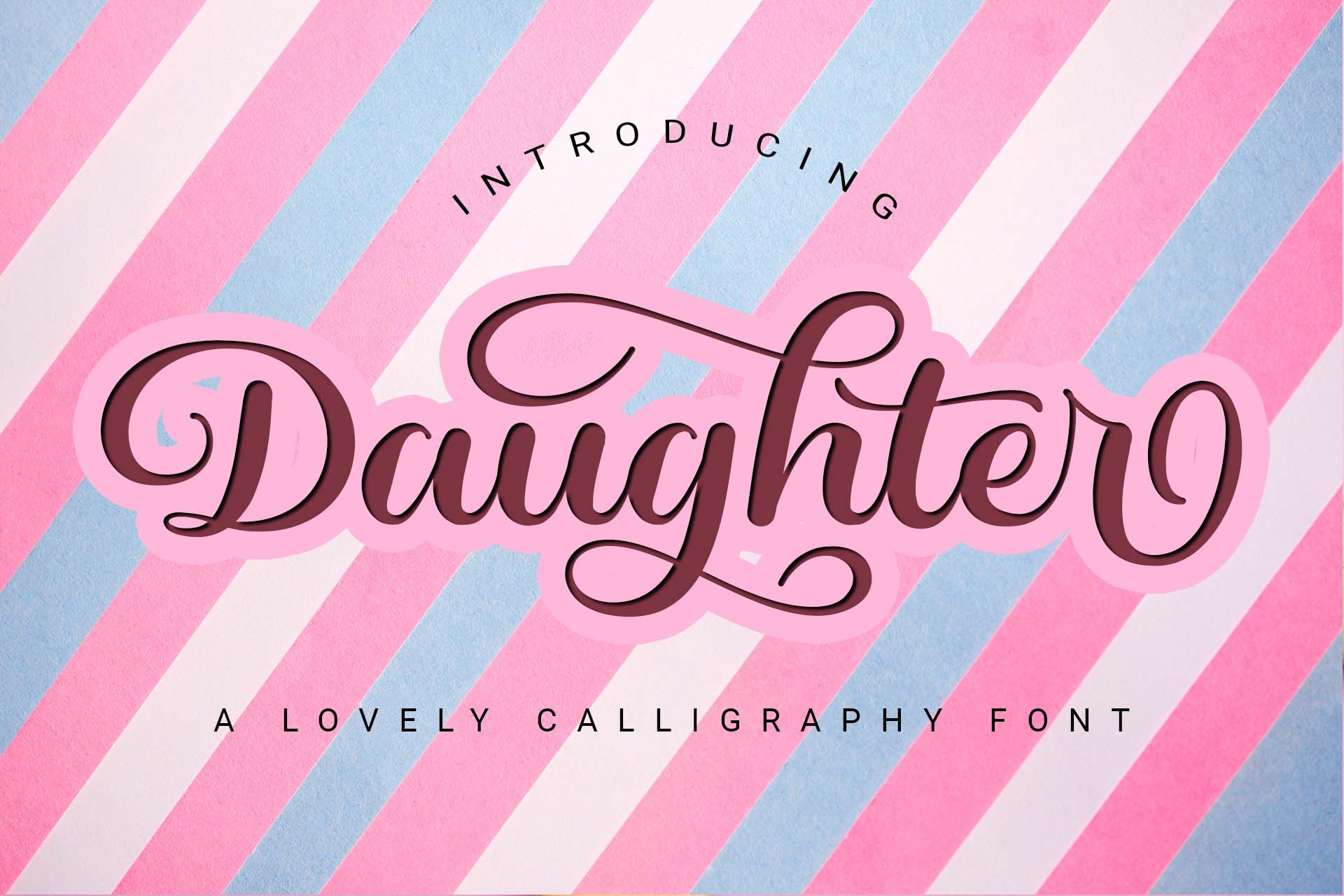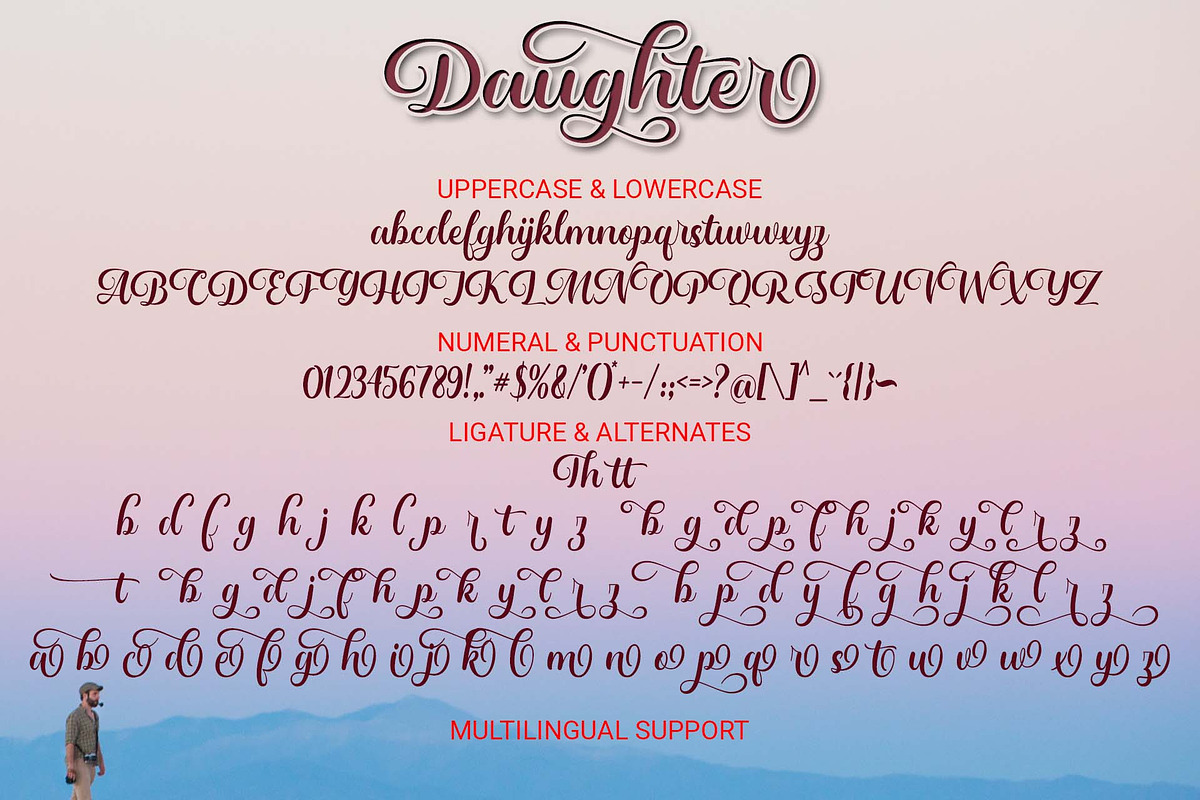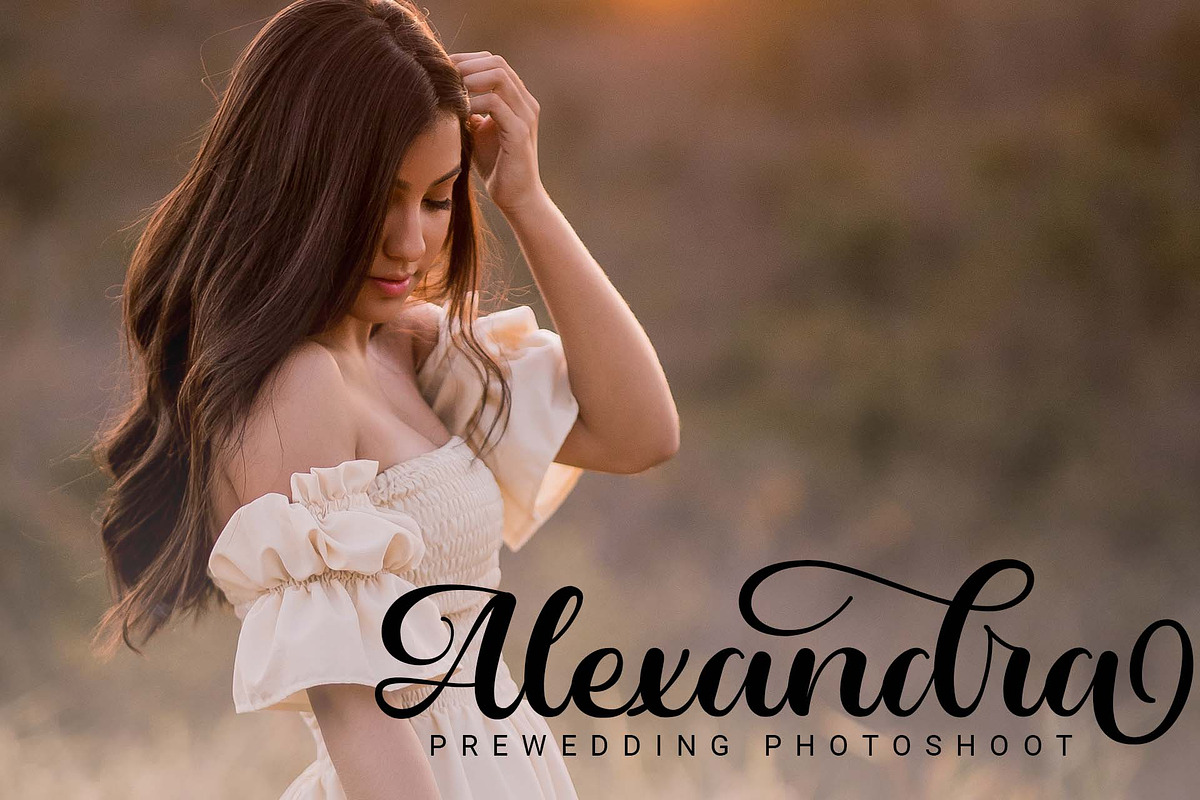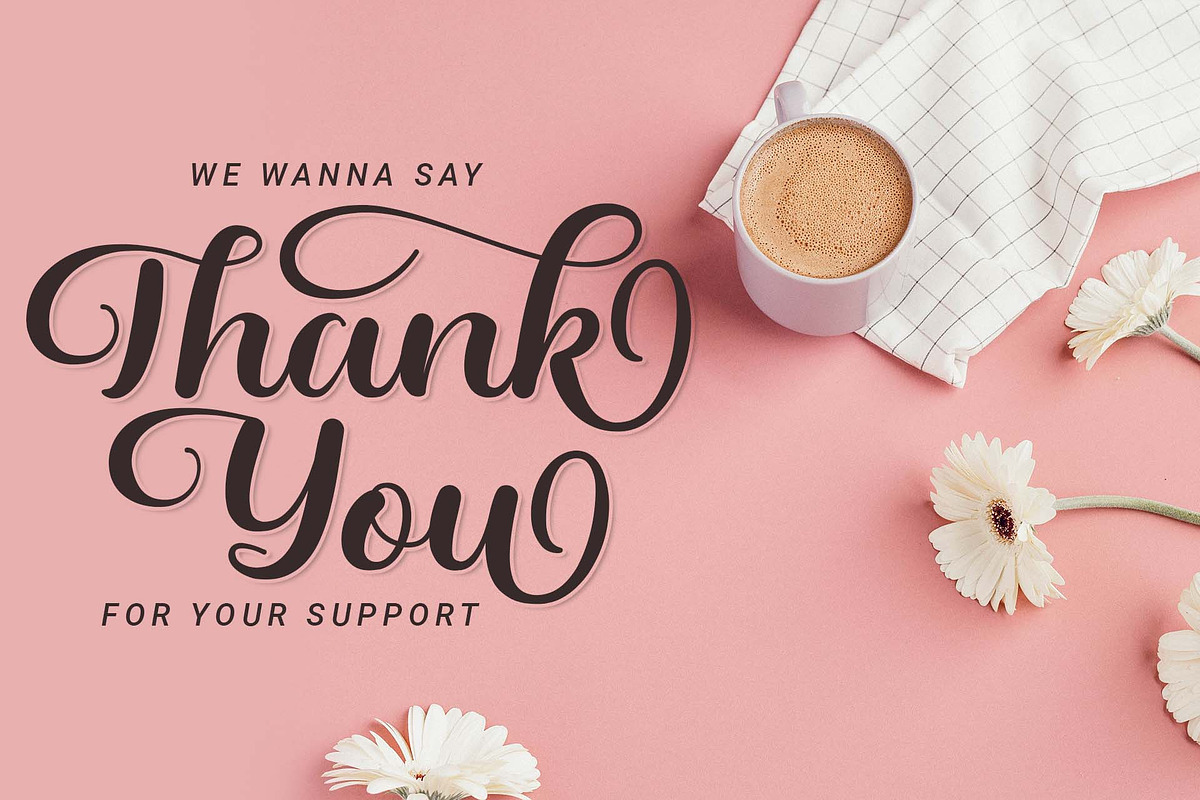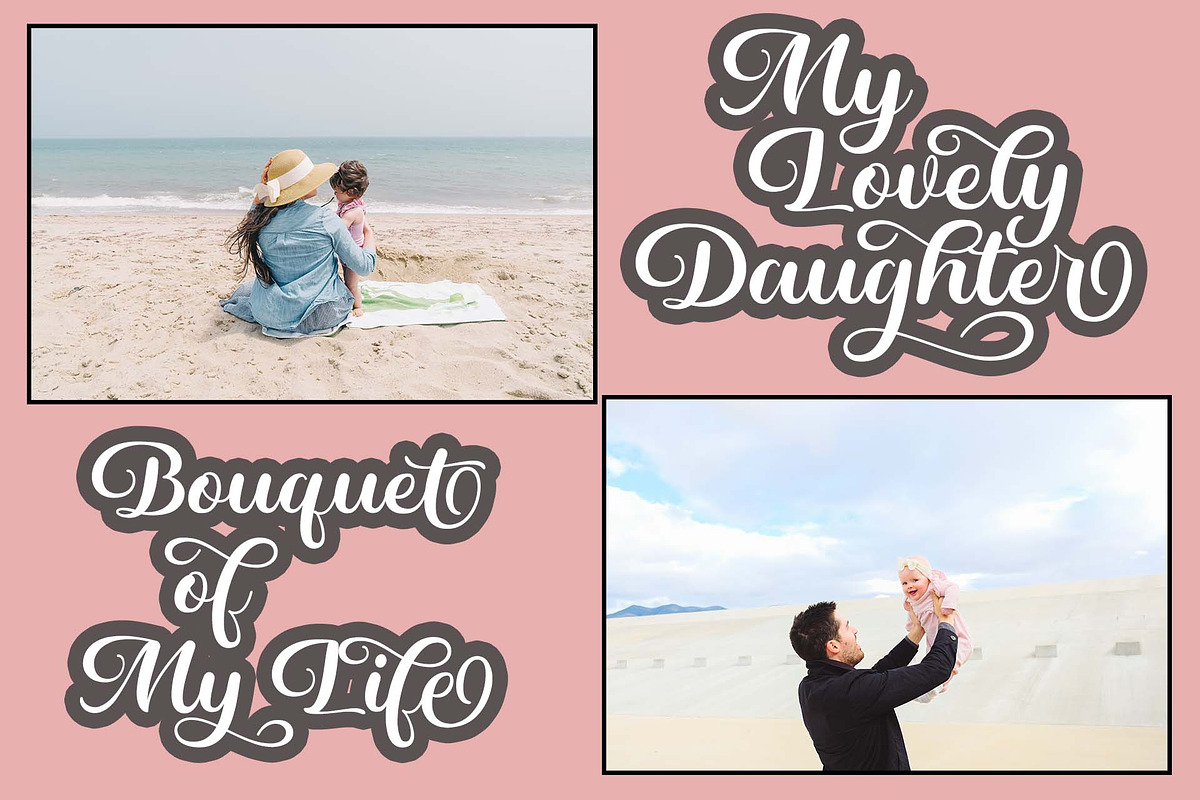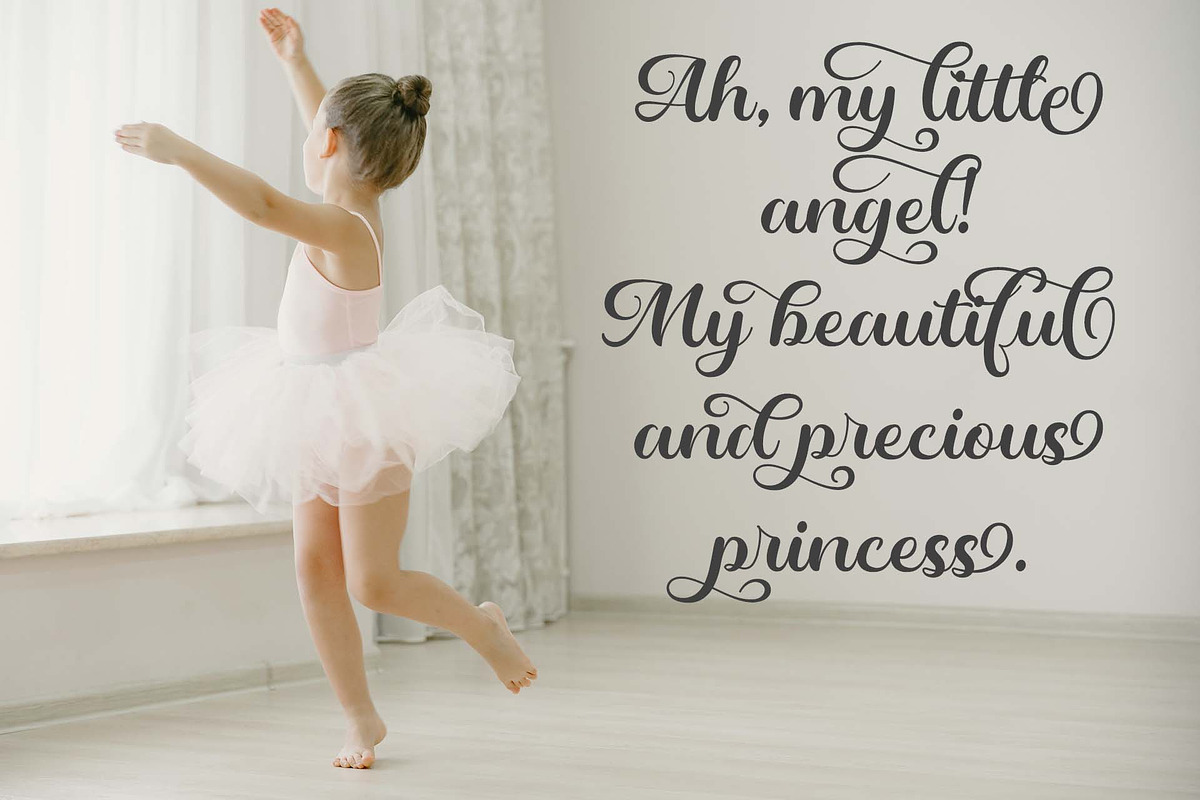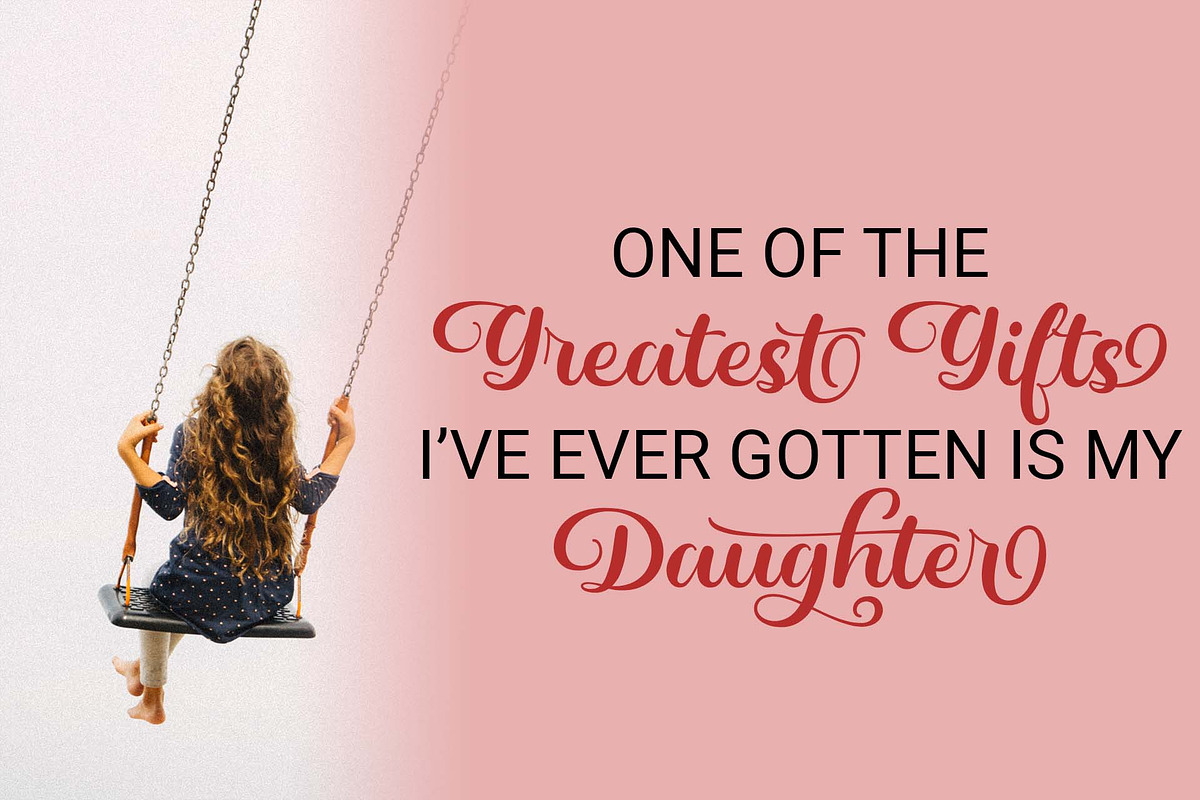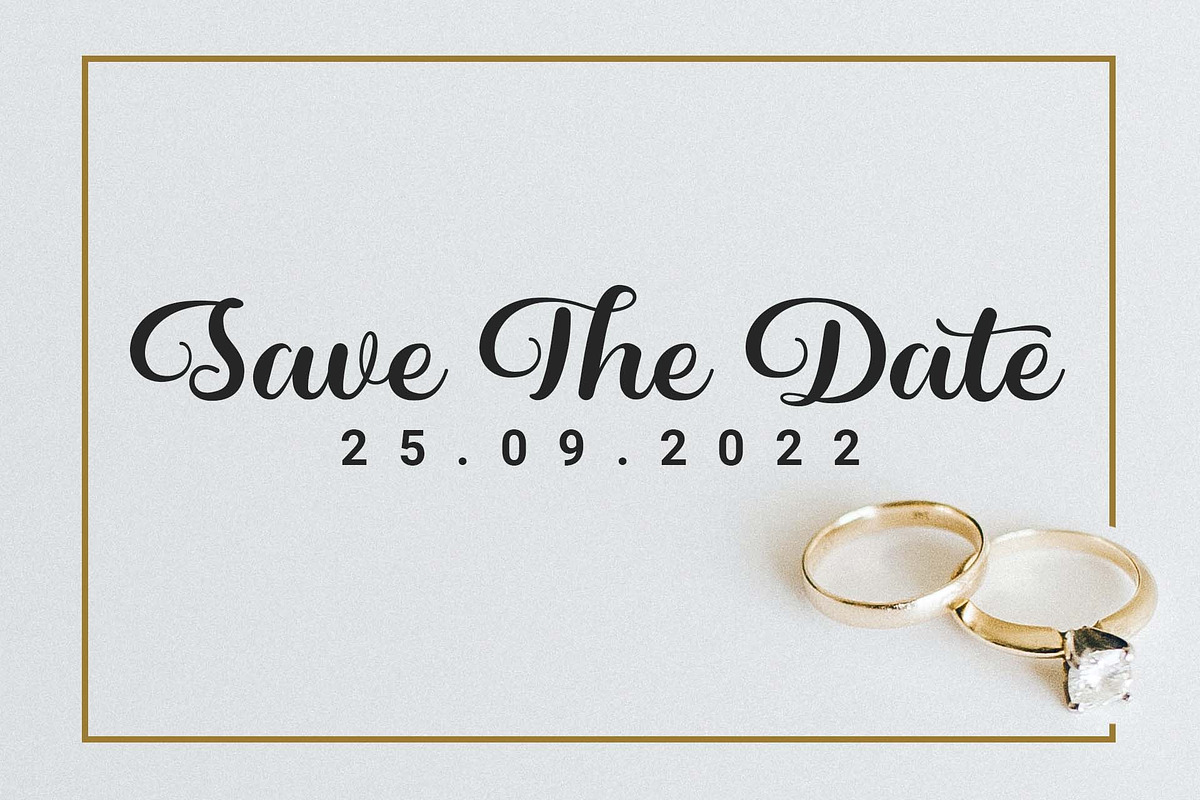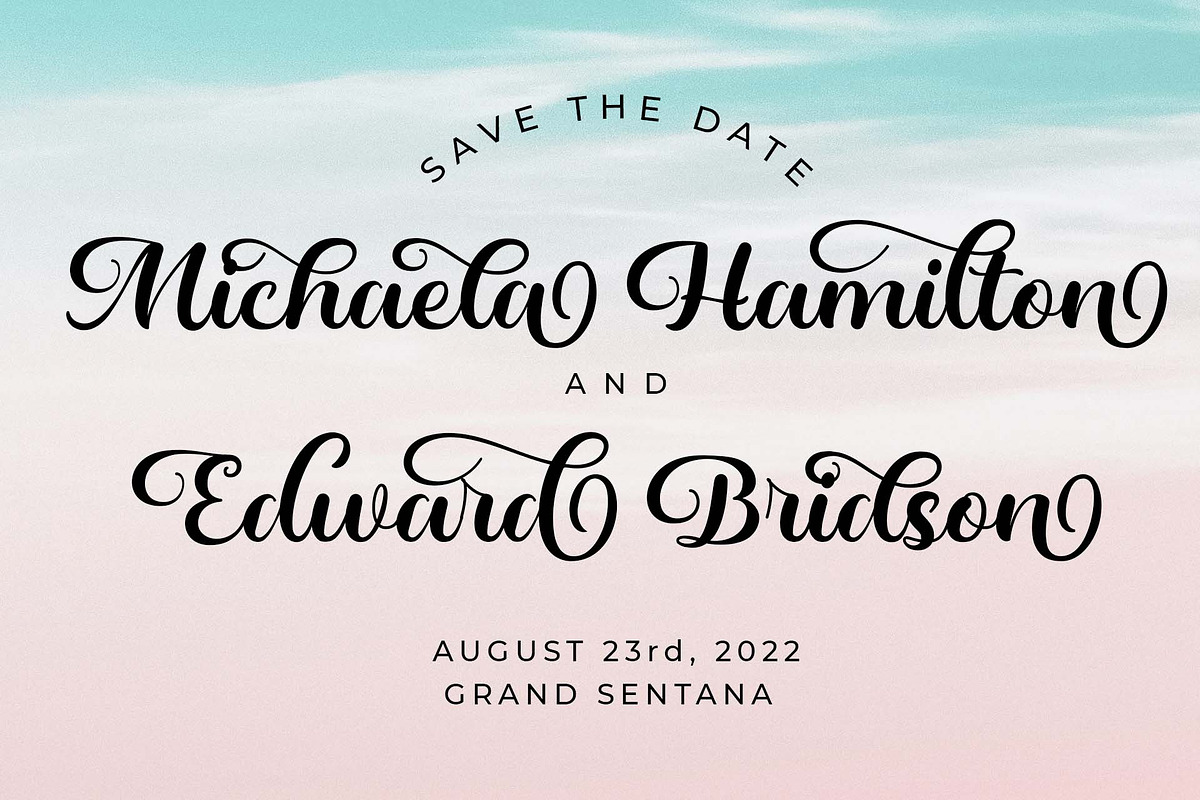
Daughter - A Lovely Calligraphy Font
Introducing our latest product, Daughter, a lovely calligraphy font.
Daughter is a royal and elegant script font. It is suitable for any branding project like logos, t-shirt printing, sport designs, and more. It will look outstanding in a wide range of contexts. This font is PUA encoded which means you can access all of the glyphs and swashes with ease!